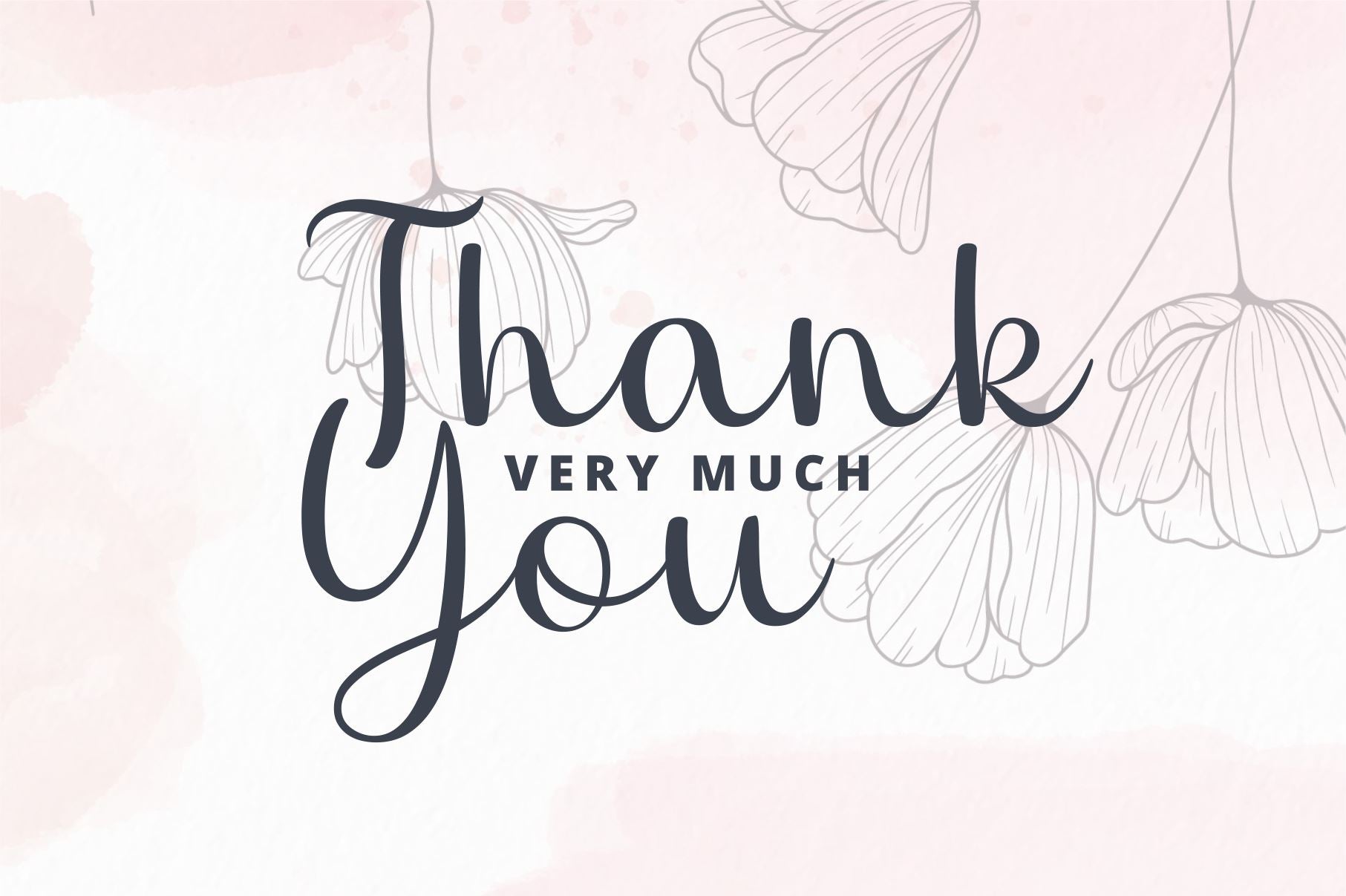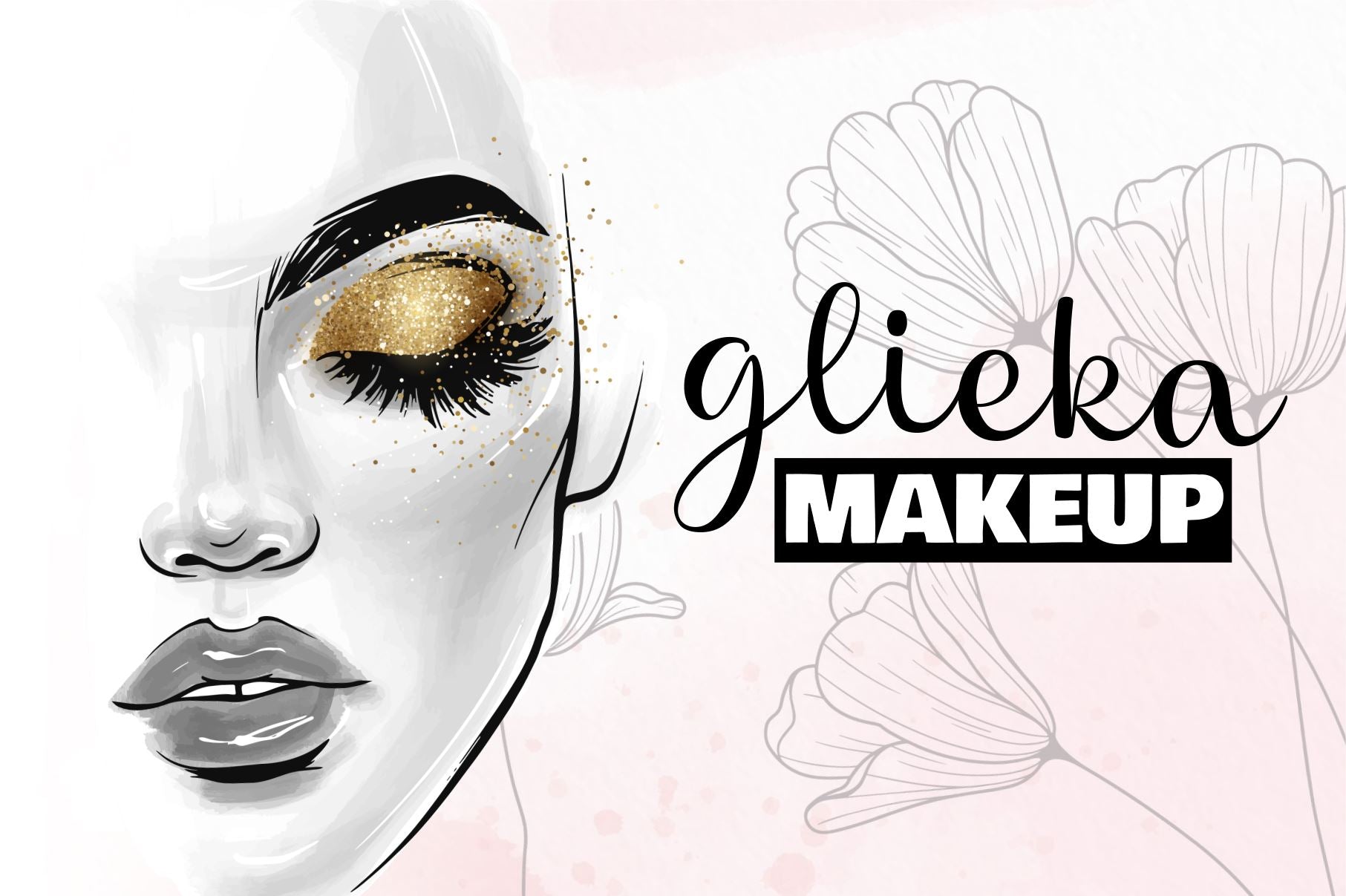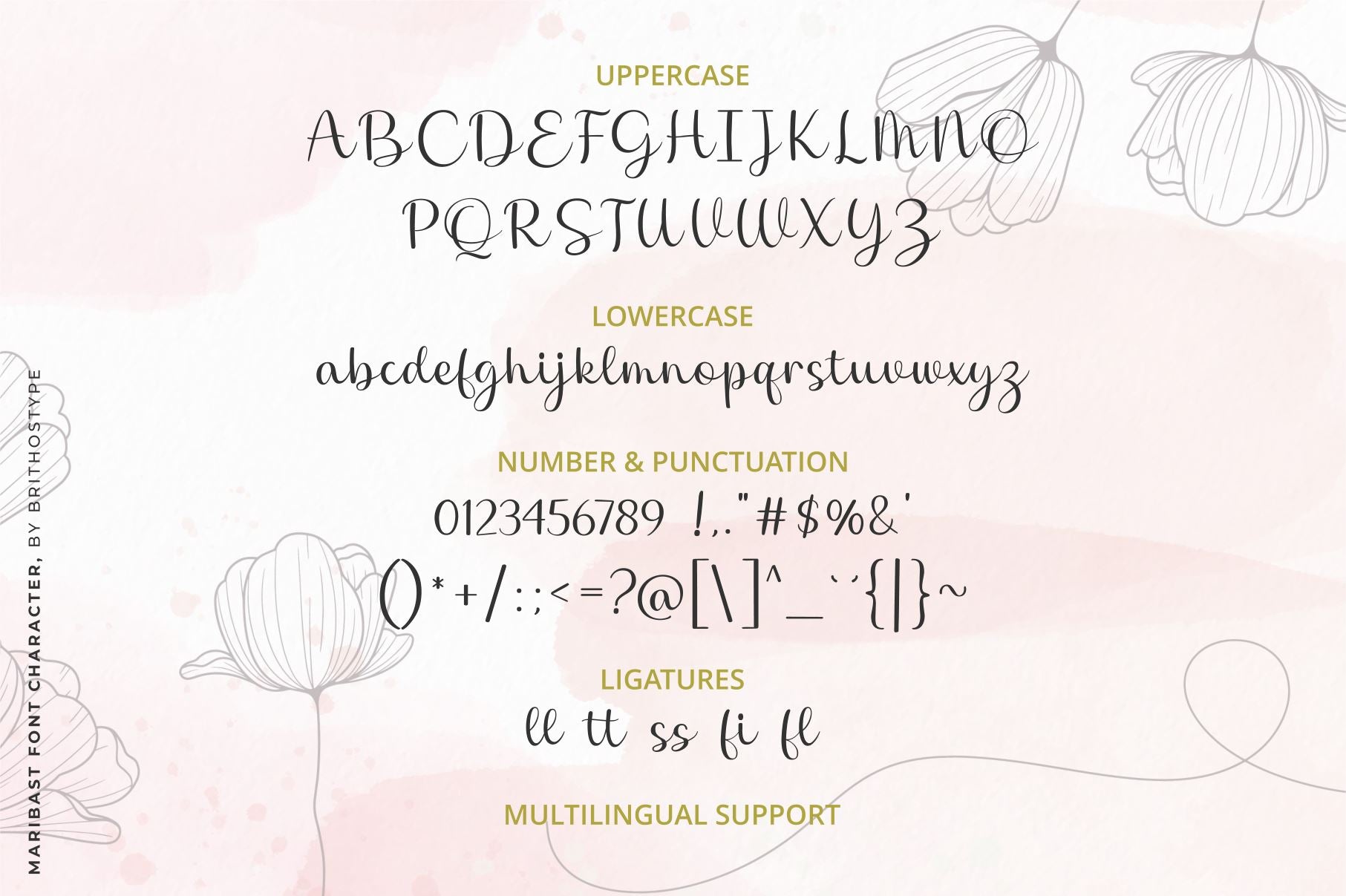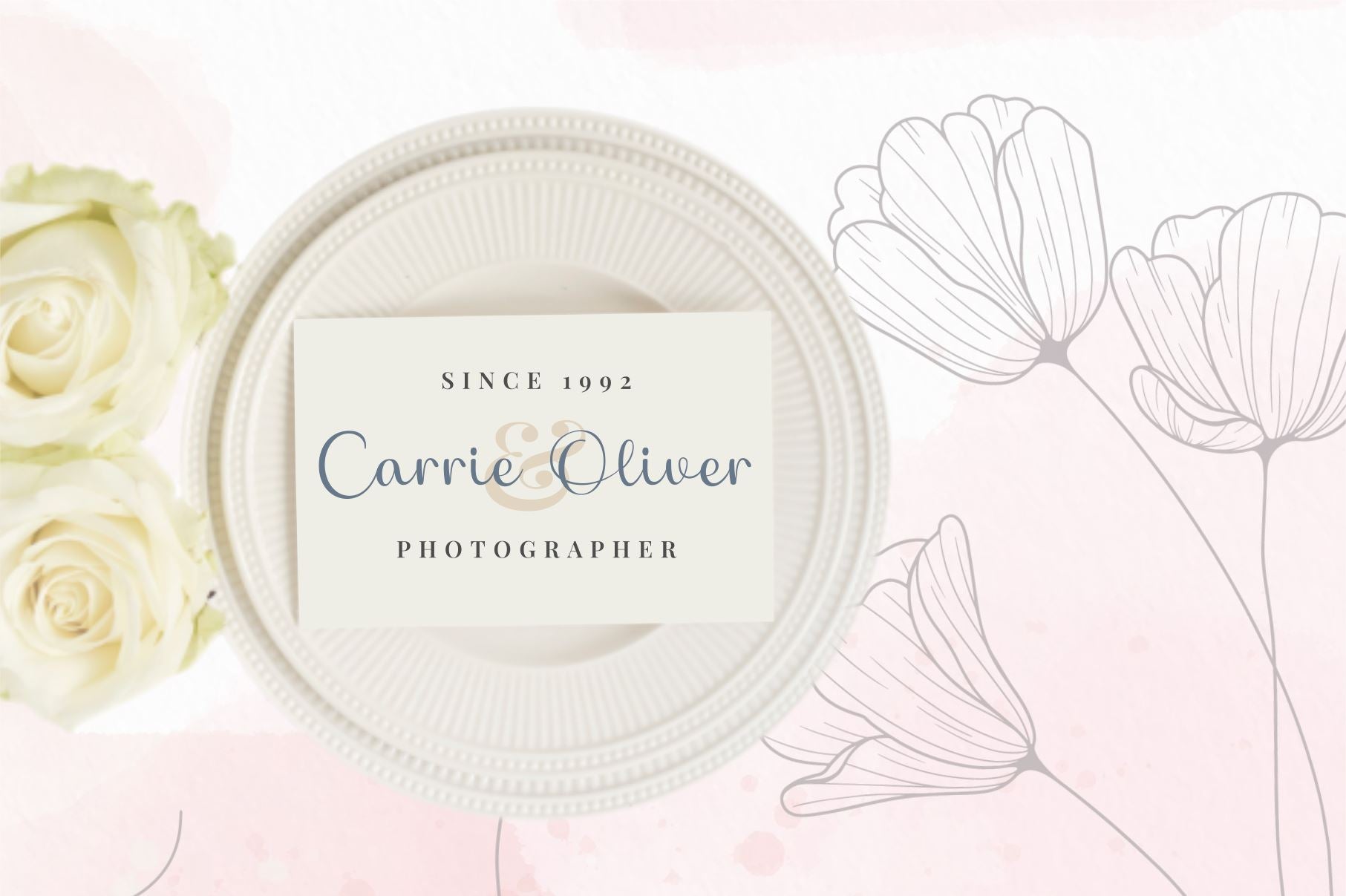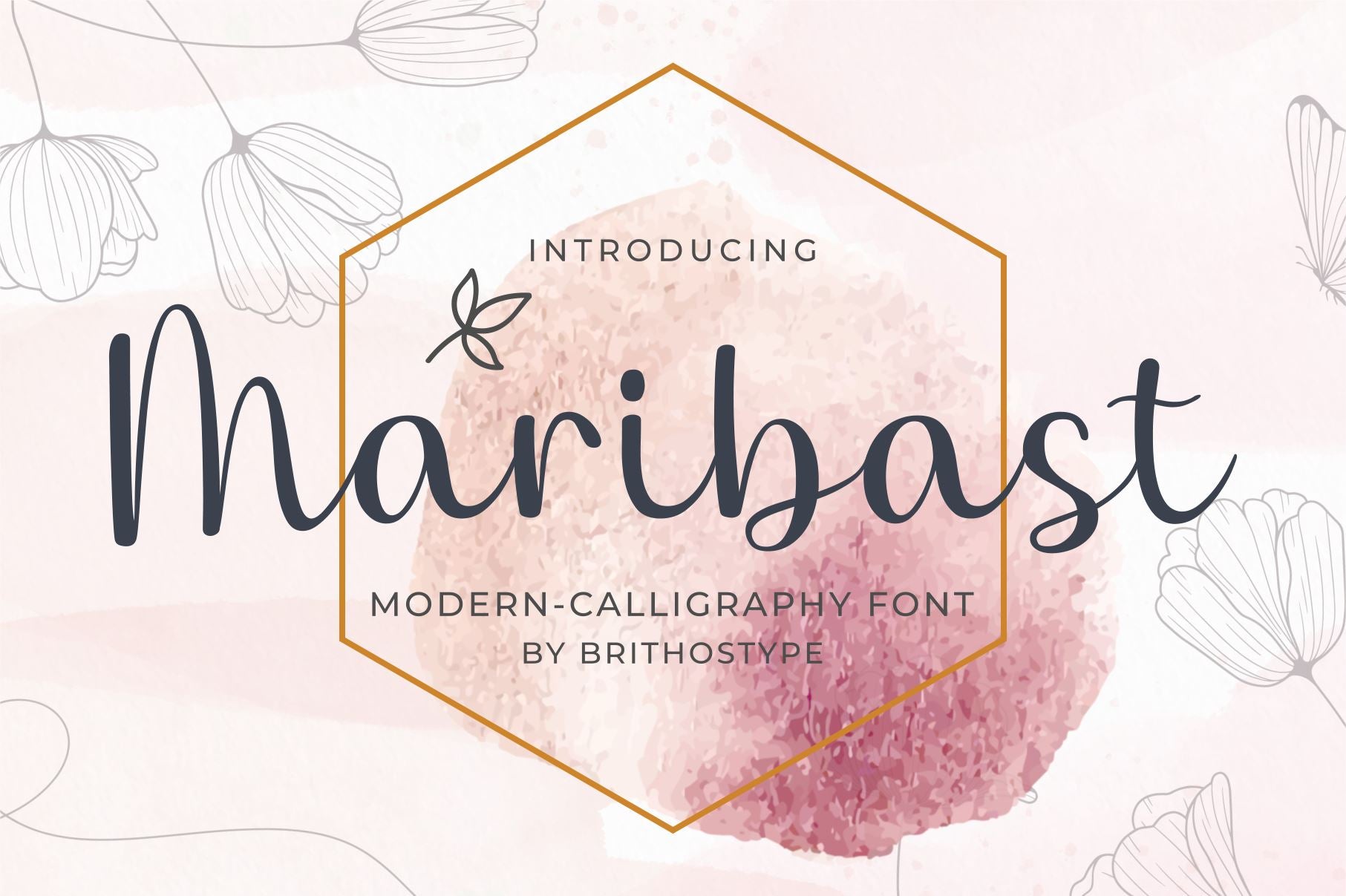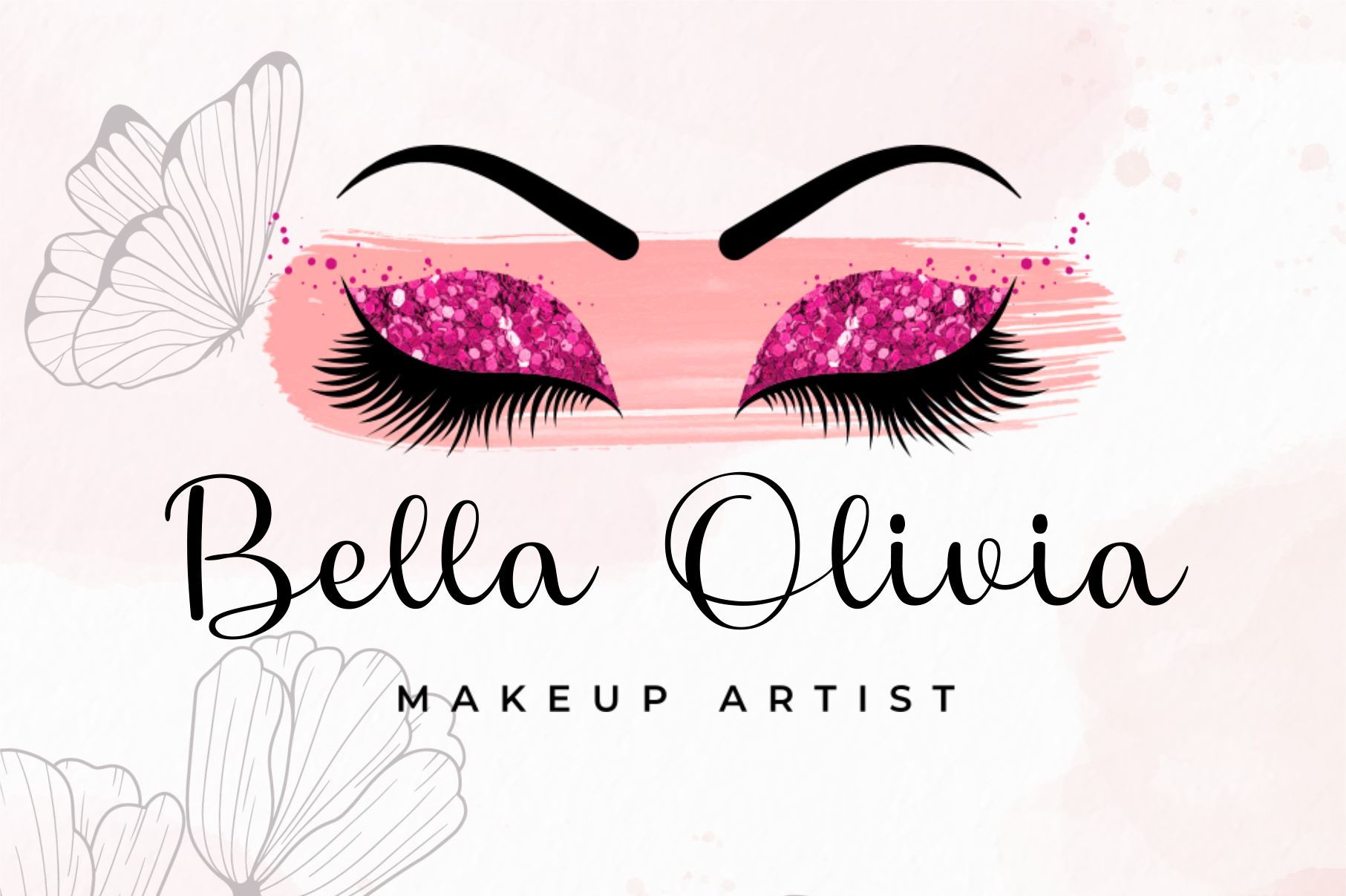
HomeScript FontsMaribast Script Fonts Maribast FacebookXPinterestWhatsApp 1 of 6 ... ... ... ... ... ... About Maribast is a flowing and relaxed handwritten font. Fall in love with its incredibly versatile style and use it to create gorgeous wedding invitations, beautiful stationary art, eye-catching social media posts, and much more! DOWNLOAD NOW People also explored Gromlaith Font Cinderella Font Manson Monogram Font Chameleon Shining Love Font Emy Slab Font Asya Font Tracing Dot Font Maybeline Font 262 0 TagsMaribast Previous articleCandilightNext articleKalina LEAVE A REPLY Cancel reply Comment: Please enter your comment! Name:* Please enter your name here Email:* You have entered an incorrect email address! Please enter your email address here Website: Save my name, email, and website in this browser for the next time I comment. Personal Use Free Zeshane Personal Use Free Read more about this font Cline Personal Use Free Read more about this font Geracella Personal Use Free Read more about this font Deling Personal Use Free Read more about this font BLOG How to Cut Any Font on Cricut: Convert a Font to SVG (Free) Turn any font into a clean SVG so it cuts crisp on Cricut - a quick 3-step workflow using a free font-to-SVG tool. Free Fonts Risk: Why Free Fonts Can Be Dangerous for Designers Fonts That Capture the Spirit of New York City To increase your work productivity, choose the most readable fonts.